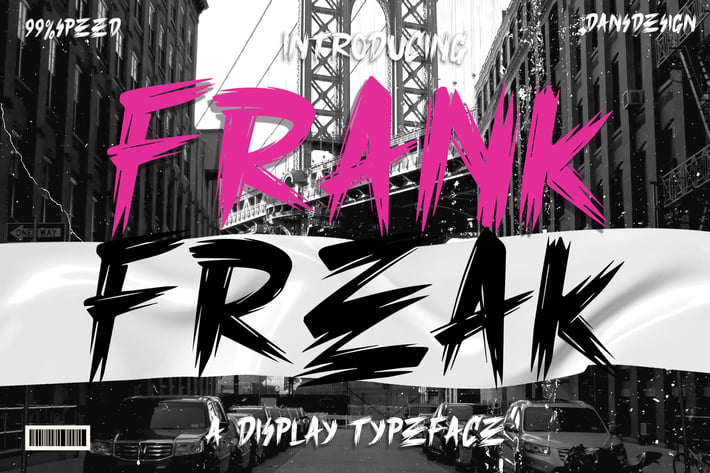
Frank Freak Marker Brush Display Font
Frank Freak Marker Brush Display Font distinct, highly detailed. Marker Display Font.
It would make a great choice for exquisite retro-urban designs, business branding, logos, Apparel designs, and more.